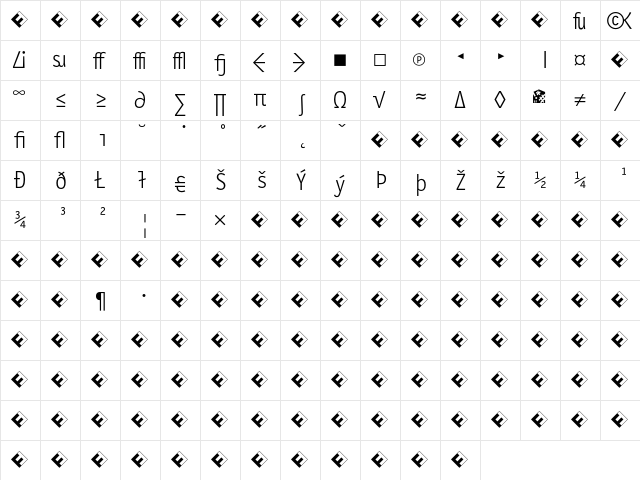
LetterGothicSlang LightExpert
Design Context for LetterGothicSlang Typeface
LetterGothicSlang takes a clean, functional approach — its unadorned letterforms prioritise legibility and work reliably across screen and print environments. The delicate stroke weight brings airiness and refinement to layouts.
A natural fit for high-end product packaging, luxury brand identities, and refined web typography.
Font Pairing: Pair LetterGothicSlang with a medium or bold serif for headlines — the weight contrast creates an elegant, high-end feel.
Pro Tip: Use LetterGothicSlang with generous tracking and line-height for the most luxurious effect — light sans-serifs reward spacious, considered layouts.